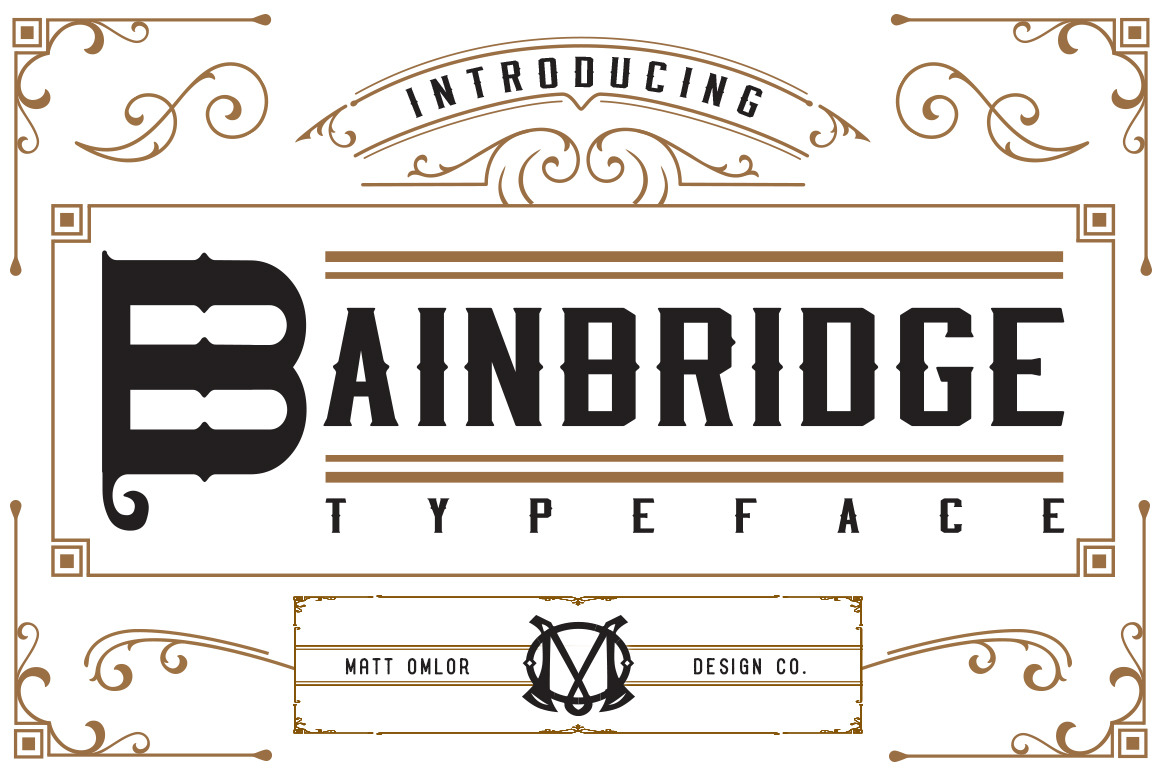
Bainbridge Typeface
Bainbridge Typeface is truly a versatile font. It is a classy looking font that works on any Branding needs. Logos, Labels, Business Cards, Letterheads, ect....
The Typeface consist of Hand Design Unique Bold Capital and Lowercase letters, that really work well together. All the Capital letters have a unique shape and form with vintage design curls and bumps. The Lowercase letters have a more simple form, but still have a vintage feel to them.